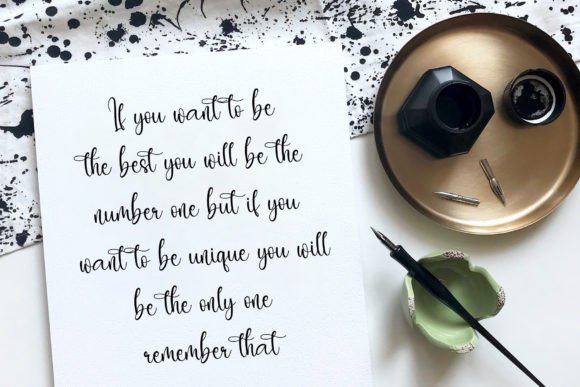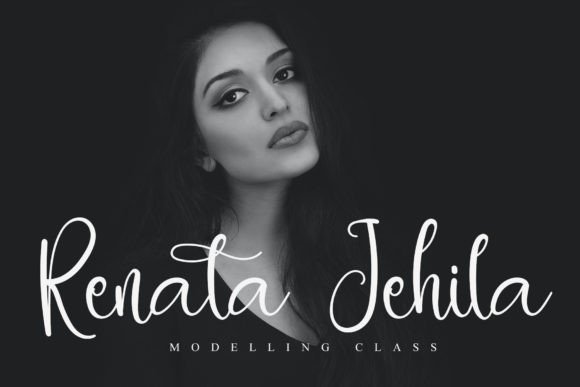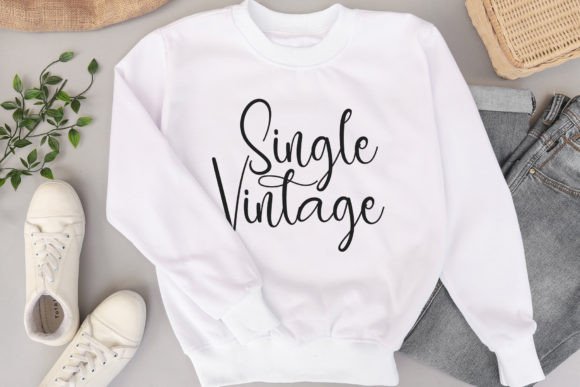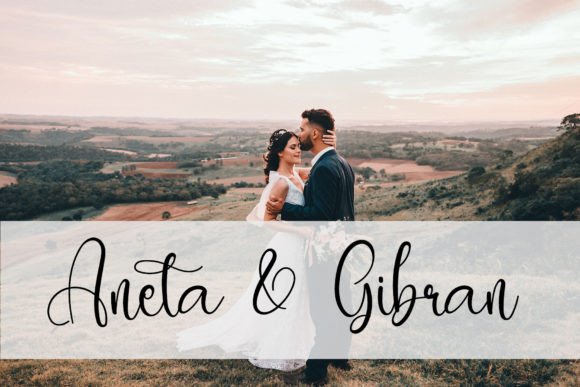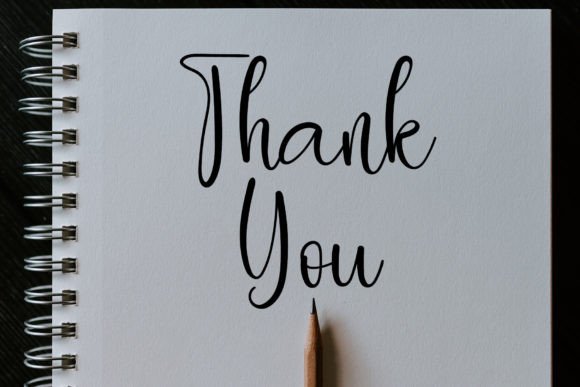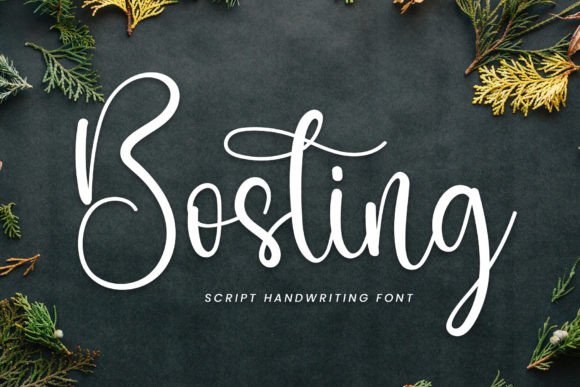
The Bosting Font: A Stylish and Dainty Script for Your Creative Projects
Have you ever been in the middle of a design project, and suddenly, you just can’t seem to find the right font? I recall a particularly frustrating experience while working on a branding project for a boutique client. The client wanted a font that was elegant, yet playful; a font that would capture the essence of their high-end products. After hours of searching, I stumbled upon the Bosting font, and it was love at first sight! In this article, I’ll share my experience with this beautiful script font, its features, and how to make the most of it in your designs.
First Impressions: What I Love About Bosting Font
The Bosting font is a stylish and dainty script font that is perfect for adding a touch of elegance to your designs. Here are some of the things I love about it:
- ✨ Elegant and refined: Bosting has a sophisticated feel to it, making it perfect for high-end branding, logos, and special events.
- ✅ Versatile: This font is suitable for a wide range of projects, from labels and watermarks to photography and craft projects.
- 💫 PUA encoded: The Bosting font is PUA encoded, which means you can access all the glyphs and swashes with ease, making it a joy to work with.
Honest Review: The Not-Perfect-but-Almost Section
No font is perfect, and Bosting is no exception. Here are a few quirks to keep in mind:
- 🤔 Limited use in body text: While Bosting is stunning in short bursts, it may not be the best choice for long-form text due to its script nature.
- ⚠️ Occasional kerning issues: As with any font, you may encounter some kerning issues, especially when using certain character combinations.
The Story Behind Bosting Font
The Bosting font was designed by a talented type designer who’s passionate about creating beautiful, elegant fonts. Inspired by classic calligraphy and modern script styles, Bosting is a unique and versatile font that’s perfect for a wide range of creative projects. While I couldn’t find any information on the designer’s background, it’s clear that they put a lot of love and care into crafting this beautiful font.
Q: What is the Bosting font best used for?
A: The Bosting font is best used for high-end branding, logos, labels, photography, watermarks, and special events.